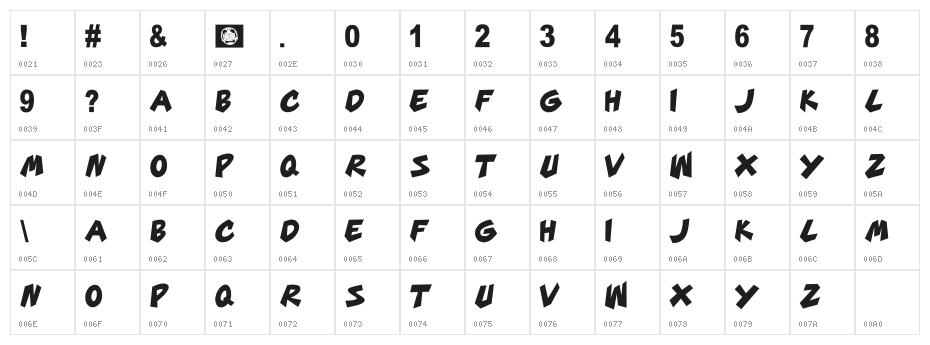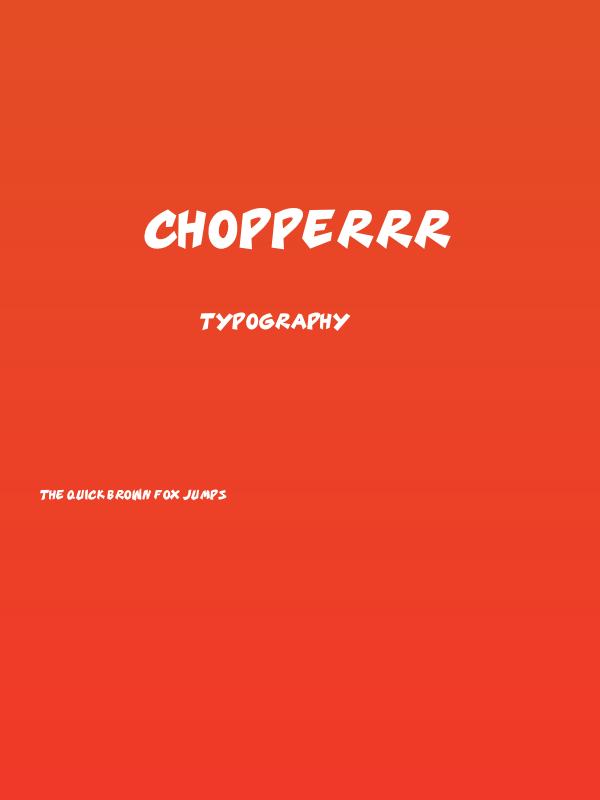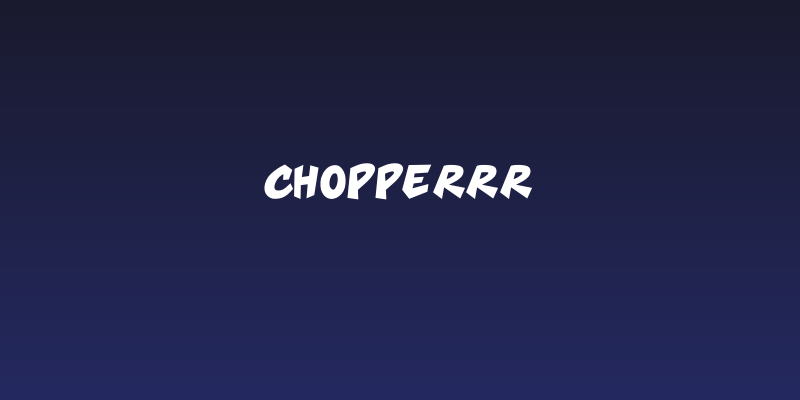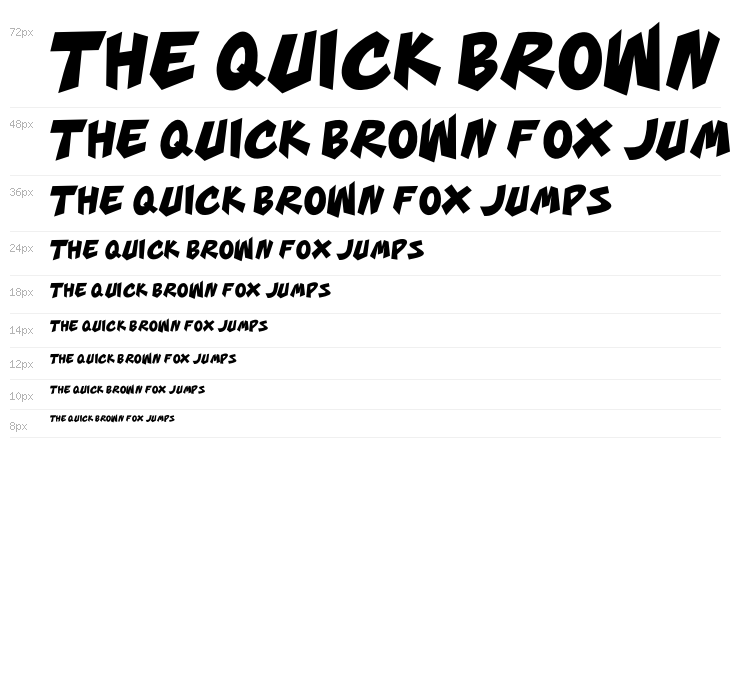
CHOPPERRR Font
CHOPPERRR Description
This font features a bold and dynamic style with a playful, cartoonish flair. The characters are thick and slightly slanted, giving them a sense of movement and energy. The strokes are consistent in width, contributing to a cohesive and robust appearance. The uppercase and lowercase letters maintain a uniform style, with exaggerated angles and sharp edges that add to the font's lively character. The numerals and special characters follow the same design principles, ensuring a harmonious look across all glyphs. This font is ideal for projects that require a fun and engaging visual impact.
| Overall Style | Playful, Cartoonish |
| Proposed Projects | Ideal for comic books, children's books, playful branding, and eye-catching posters. |